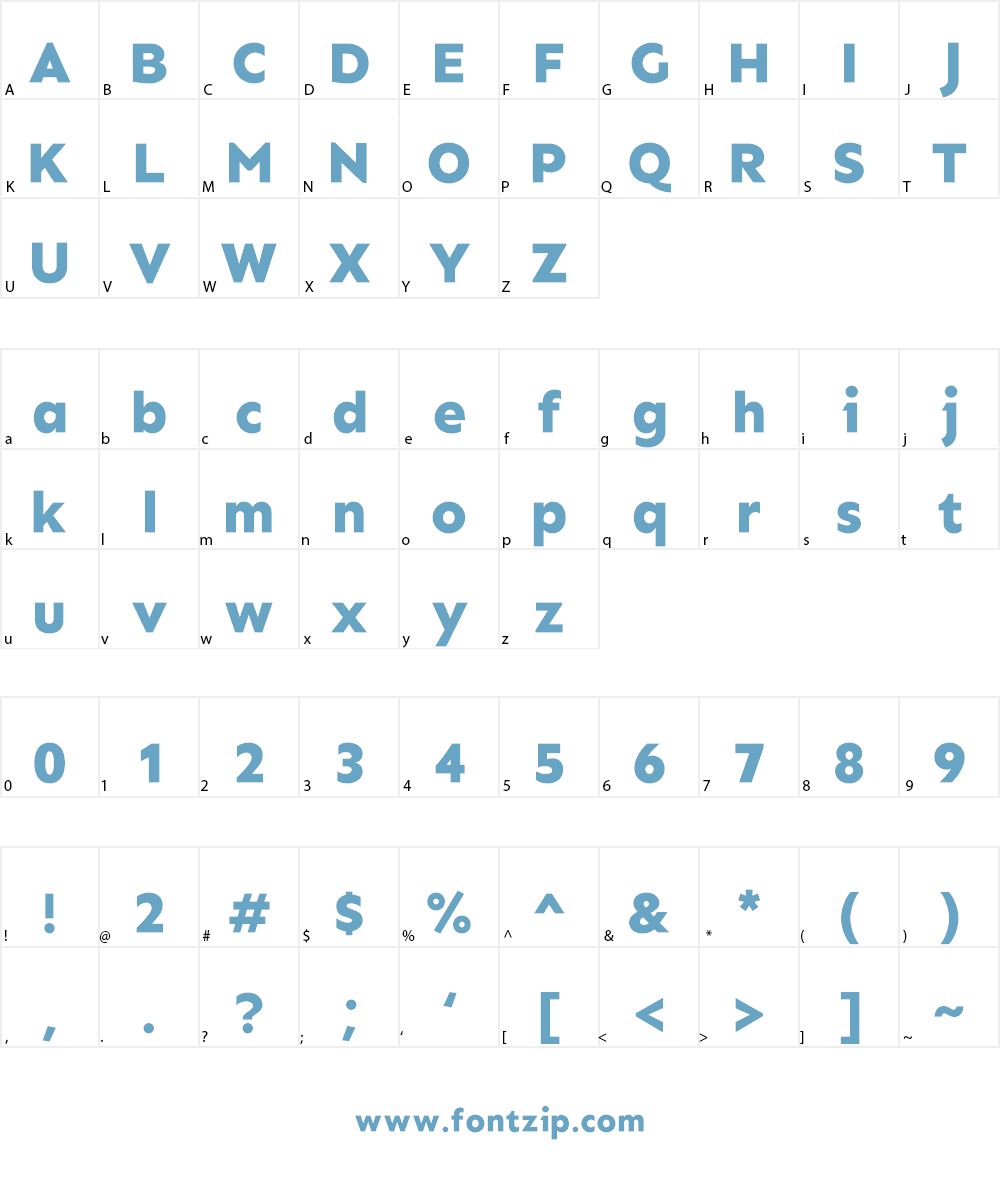
Rain is a derivative of the open source font, Sen by Philatype.
The changes include new uppercase I, new Numbers 1 and 7, new lowercase I and J, and addition of the Russian Ruble sign.